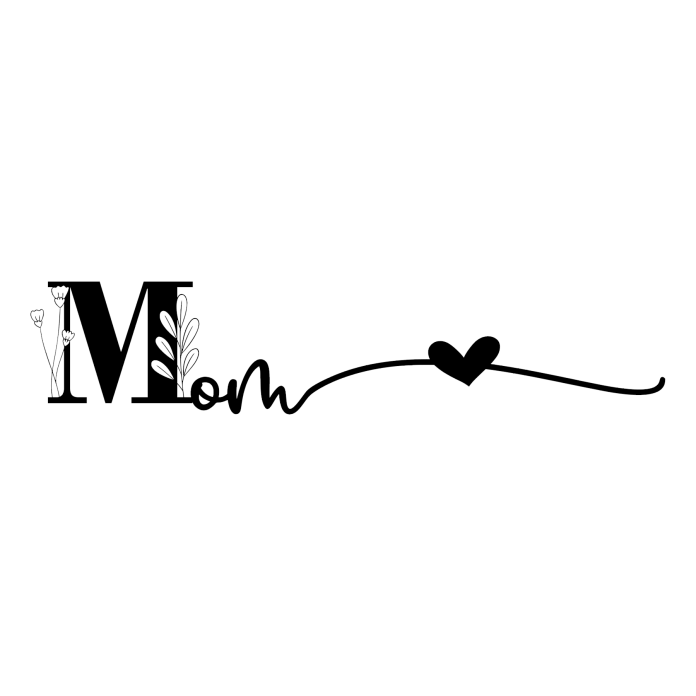
Botanical Split Font Mom – Stylish Mother’s Day SVG
A modern twist on “Mom” with botanical accents and a flowing heart script, perfect for stylish Mother’s Day crafts. Use this design for cards, t-shirts, and home decor gifts that celebrate Mom with elegance and love.